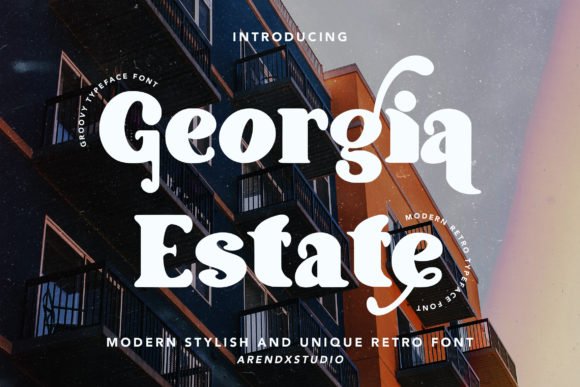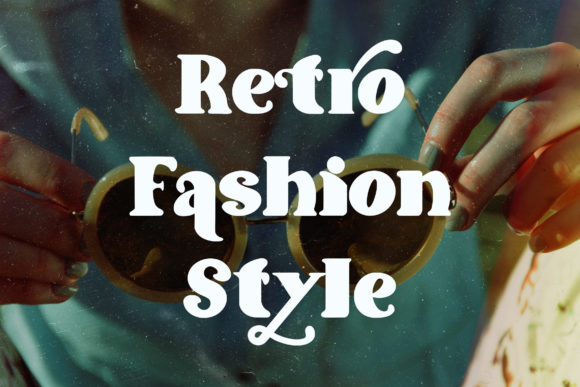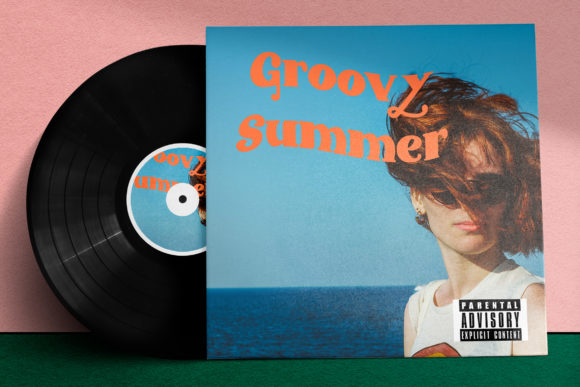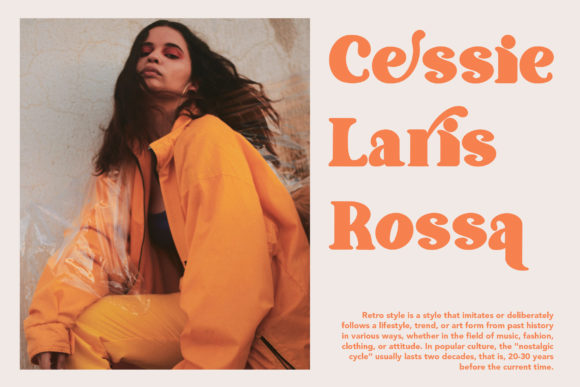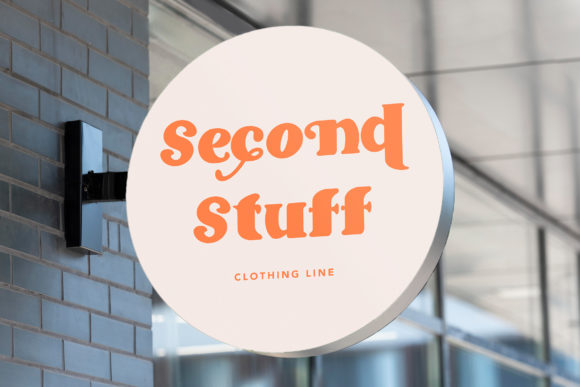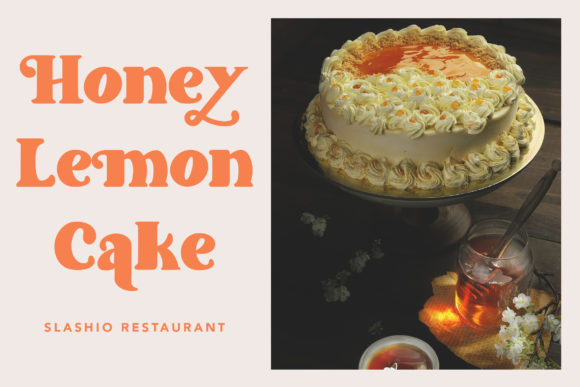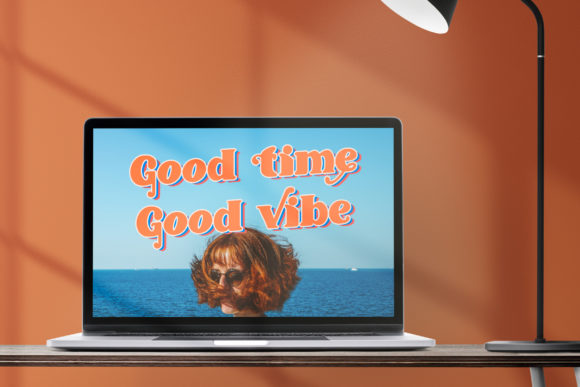
Have you ever stared at a blank page, trying to come up with the perfect font for your design? I know I have! It’s like searching for the perfect pair of shoes to match your outfit – you want something that makes you stand out, but still feels authentic. That’s where the Georgia Estate Font comes in.
This unique retro serif font has been making waves in the design world, and for good reason. Its distinctive characters and cool flair make it perfect for branding projects, logos, and everything in between. Whether you’re a seasoned designer or just starting out, the Georgia Estate Font is a valuable addition to your toolkit. With its versatility and timeless charm, it’s no wonder designers are flocking to this stylish font.
Georgia Estate Font Key Features
- Font Family: Georgia Estate Font is a serif font family designed to resemble traditional estate signage from the 19th century.
- Font Size: Georgia Estate Font is available in a range of sizes, from 8pt to 72pt, making it suitable for various applications, including signage, invitations, and body text.
- Unique Characteristics: Georgia Estate Font features intricate details, ornate flourishes, and classic letterforms, evoking a sense of nostalgia and elegance.
Georgia Estate Font Review
Overall, I think Georgia Estate is a solid choice for a serif font, but it has some quirks that might make it less desirable for certain projects.
- ✨ Elegant and refined appearance: Georgia Estate has a classic, timeless feel that works well for formal or traditional designs.
- ✨ Wide language support: The font includes a wide range of languages, making it a good choice for international projects.
- ✨ Clear legibility: Georgia Estate is highly legible, even at small font sizes, making it a good choice for body text.
- ⚠️ Limited bold and italic styles: While the font includes a range of weights, the bold and italic styles are somewhat limited, which can make it harder to create emphasis.
- ⚠️ Not ideal for headlines: Georgia Estate is best suited for body text, as it can be too elegant and refined for headlines.
In conclusion, Georgia Estate is a good choice for projects where a classic, serif font is needed. However, it may not be the best choice for projects that require bold or italic emphasis, or for headlines that need a more dramatic font.
Tips for Getting the Most Out of Georgia Estate Font
Use Georgia Estate Font for formal and professional documents, such as resumes, business letters, and presentations.
Pair Georgia Estate Font with other serif fonts for a classic and elegant look.
Use Georgia Estate Font in large sizes for headings and titles to create visual hierarchy.
Georgia Estate Font is commonly used for:
Formal documents and reports
Business presentations and proposals
Alternatives to Georgia Estate Font
Playfair Display is a high-end serif font, ideal for luxury branding and elegant designs. It features intricate details and ornate flourishes, making it perfect for use in titles, headings, and special occasions.
Compared to Georgia Estate Font, Playfair Display is more ornate and luxurious. While Georgia Estate Font is clean and classic, Playfair Display is more opulent and eye-catching.
Merriweather is a classic serif font, suitable for body text and general use. It features a traditional design with a strong x-height and well-defined serifs.
Compared to Georgia Estate Font, Merriweather is more formal and traditional. While Georgia Estate Font is clean and modern, Merriweather is more timeless and elegant.
3. Didot
Didot is a luxurious serif font, ideal for high-end designs and luxury branding. It features a classic design with a strong x-height and well-defined serifs.